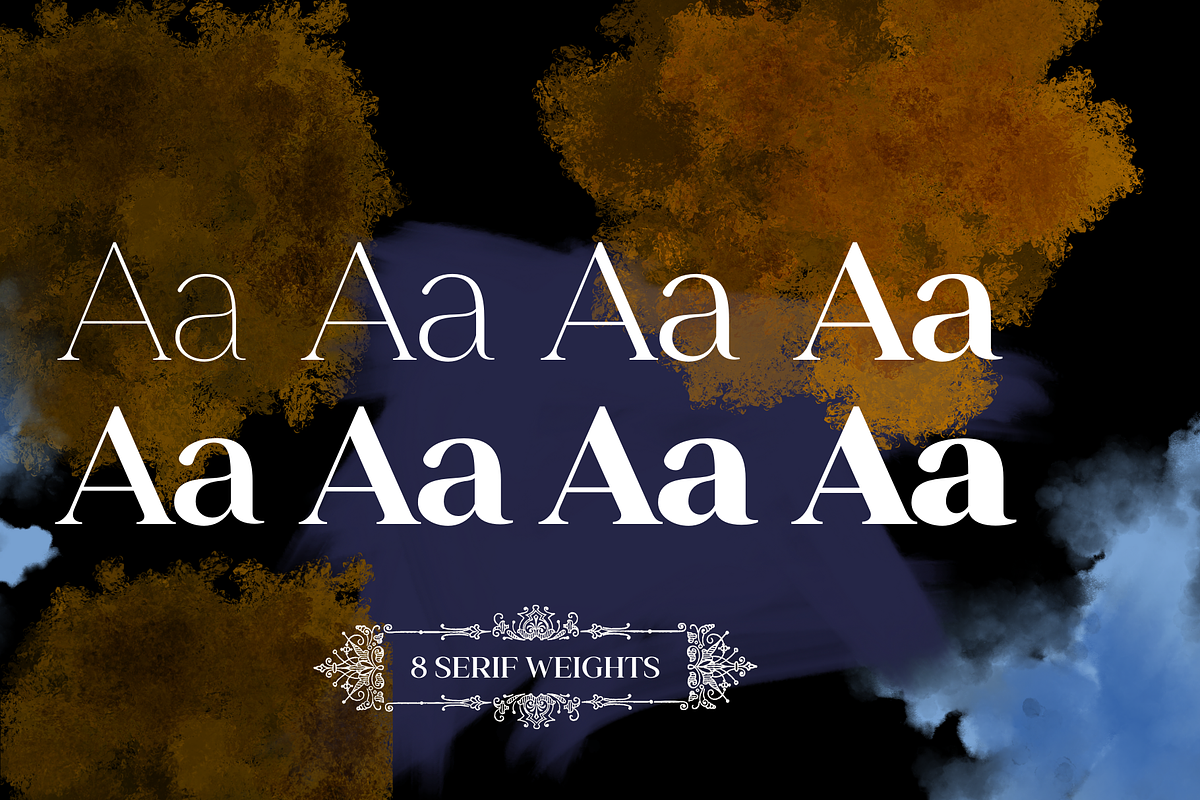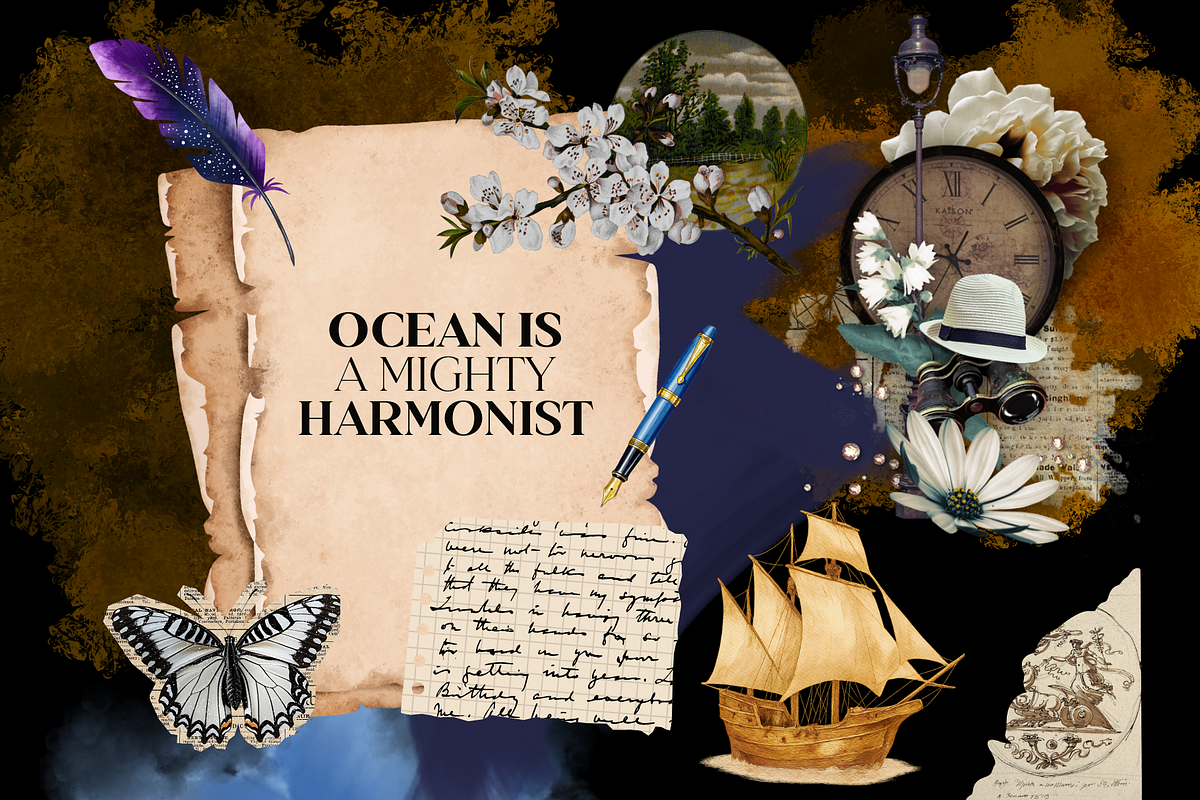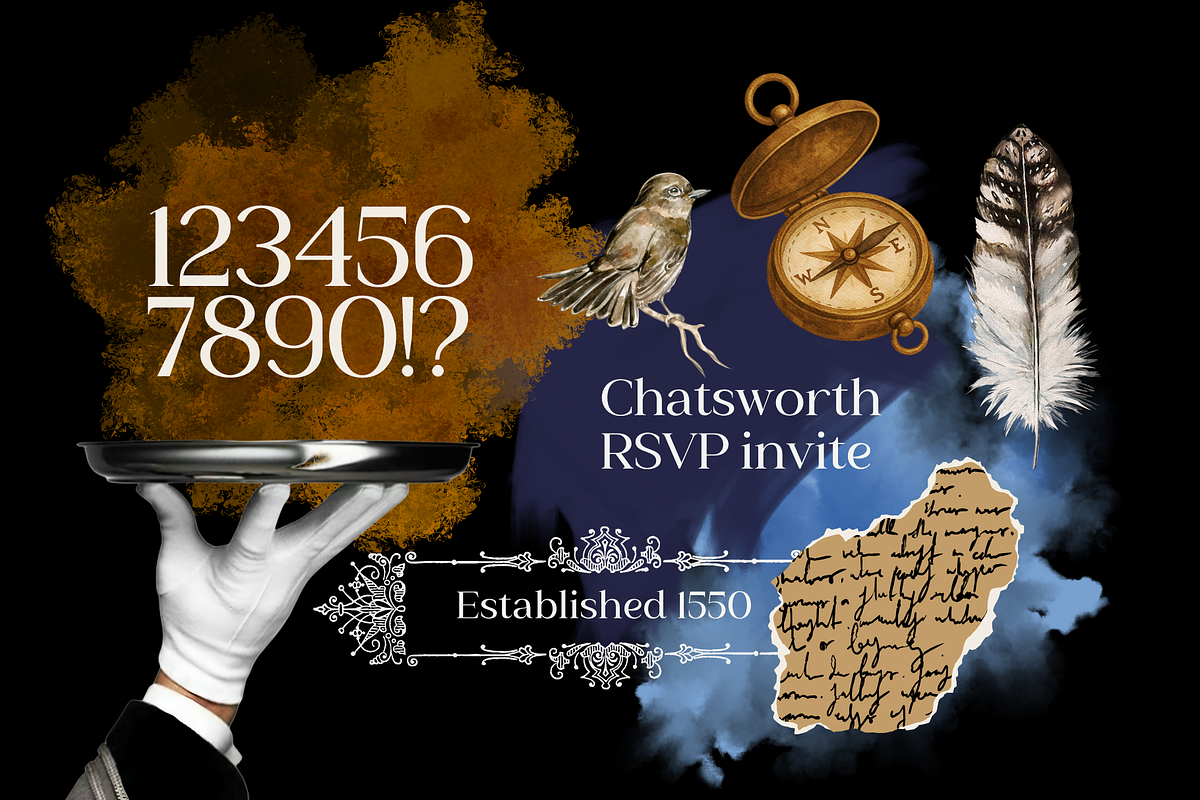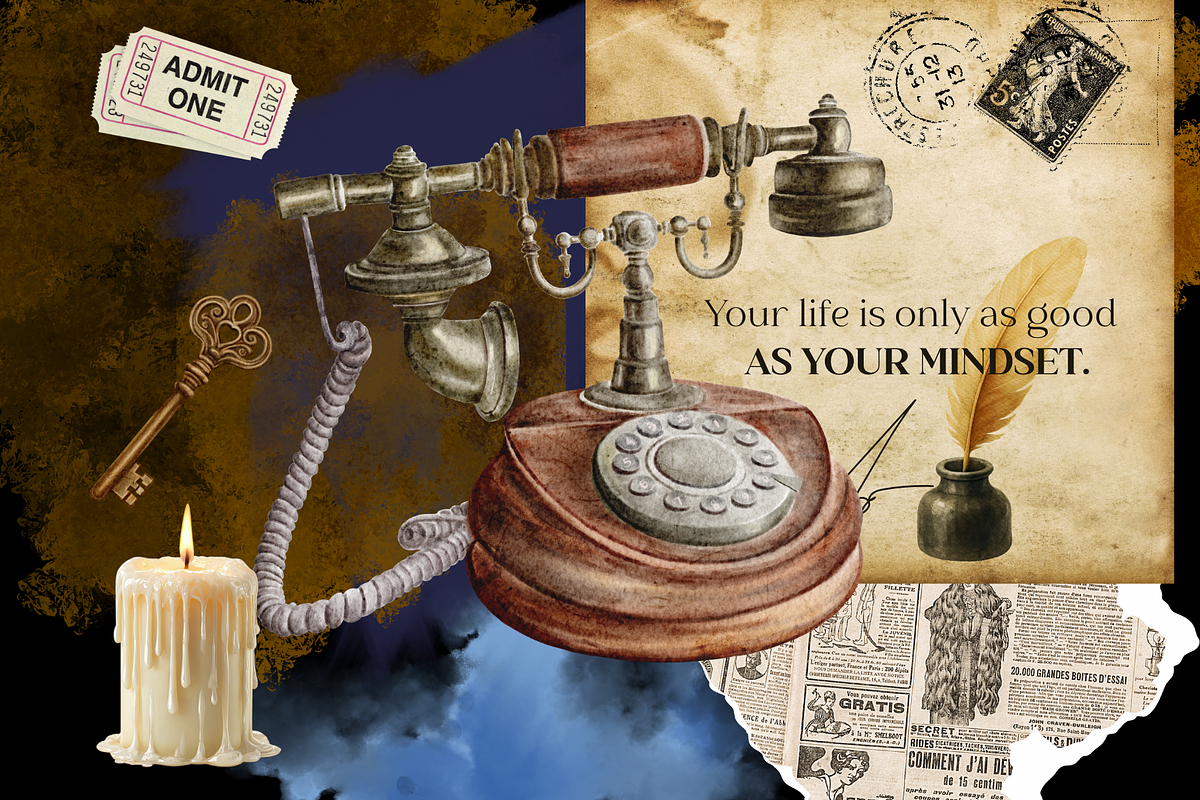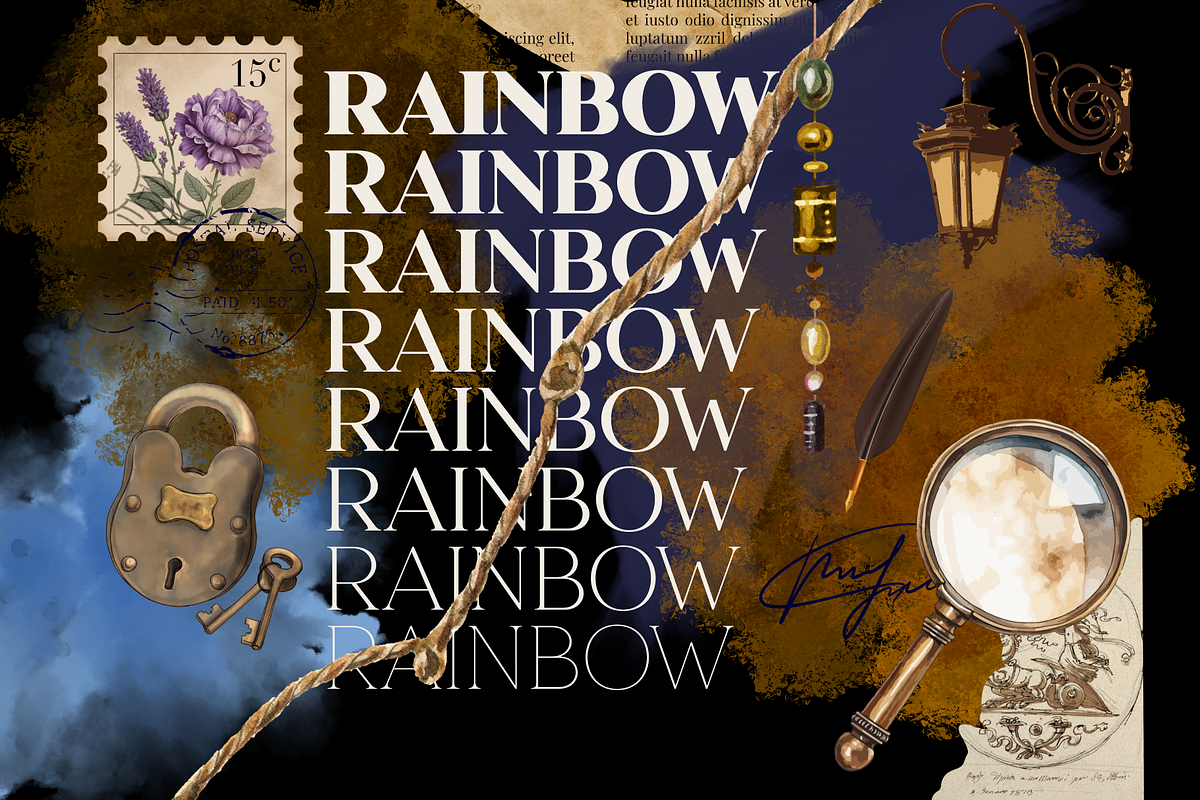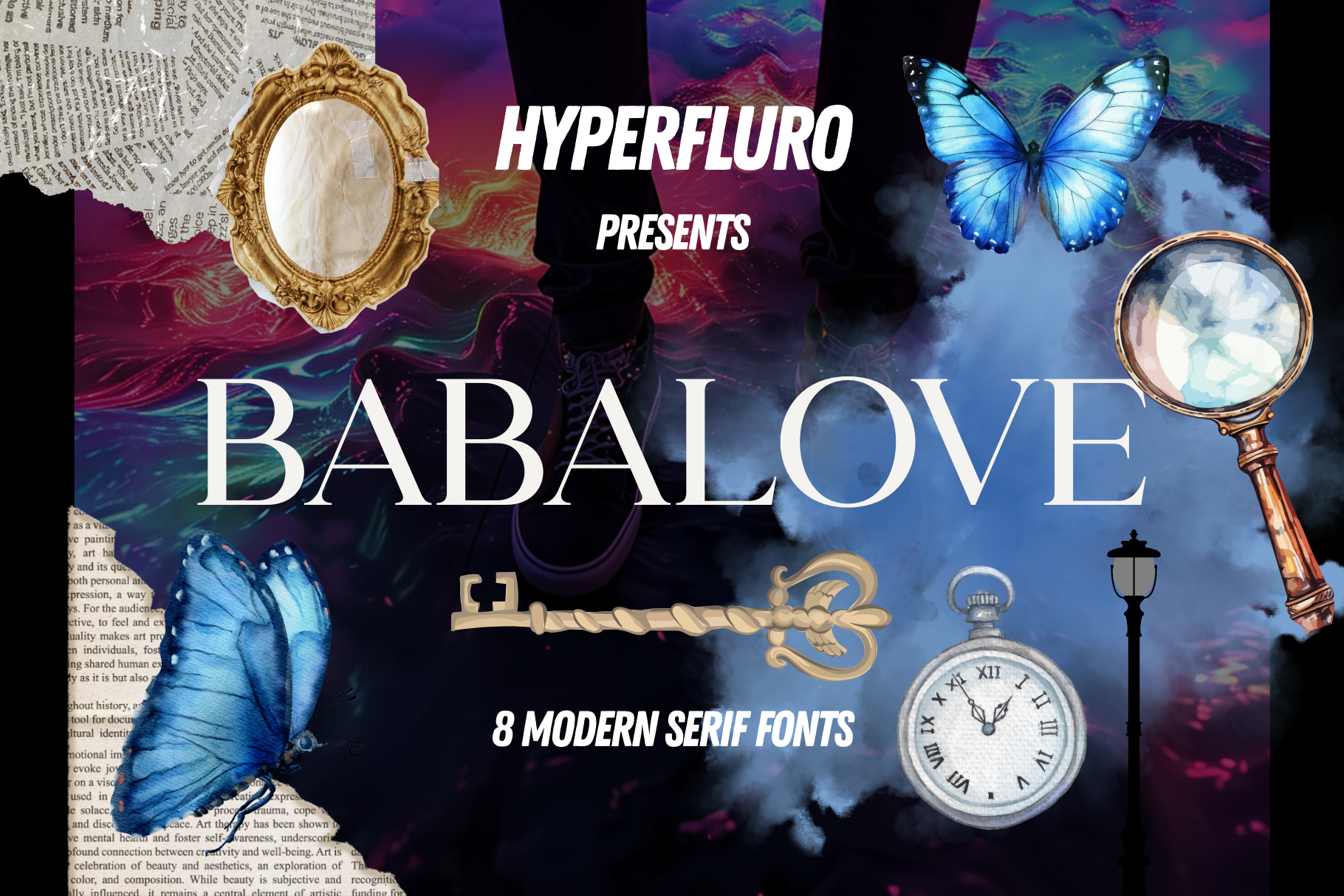
Babalove Serif Type Family 8 Fonts
Introducing Babalove, a fresh and versatile serif type family of 8 weights designed to elevate any project. Babalove strikes the perfect balance between elegance and strength, with its delicate, feminine curves contrasted by bold, masculine base strokes. Its modern design is full of personality, making it ideal for a wide range of applications—whether you're creating for brands, editorial layouts, or digital interfaces. With its unique flair, Babalove offers timeless sophistication that enhances any medium or style.